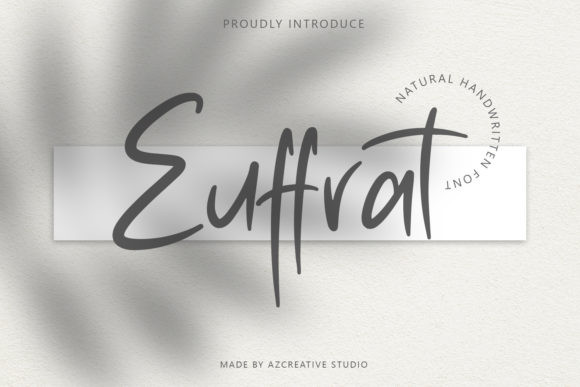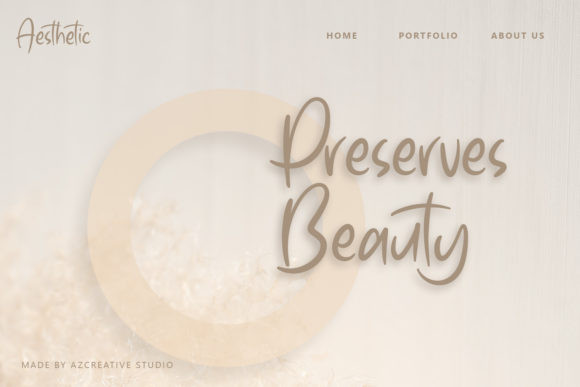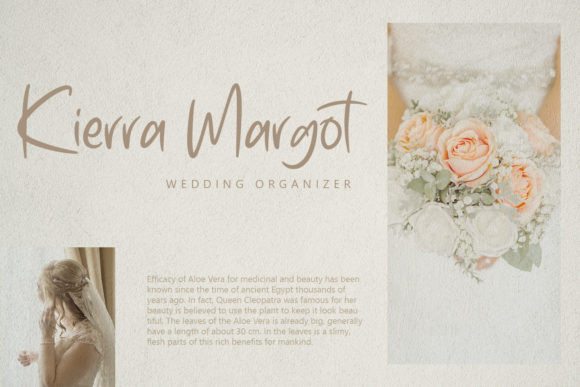
Euffrat Font
Euffrat FontEuffrat is a relaxed, friendly and cozy paint brushed handwritten font. This font is PUA encoded which means you can access all of the glyphs and swashes with ease!